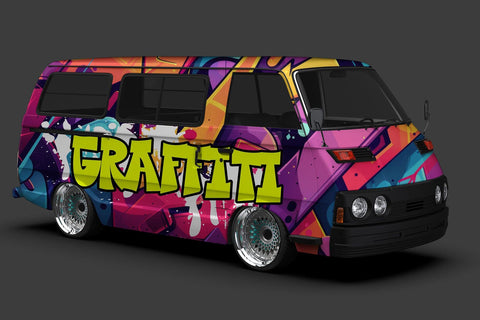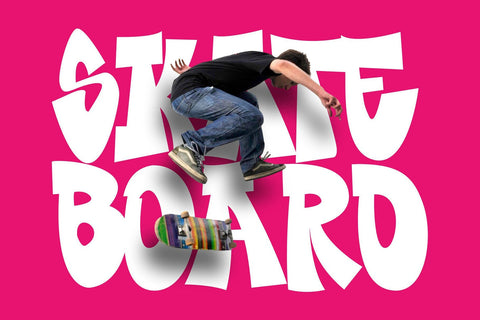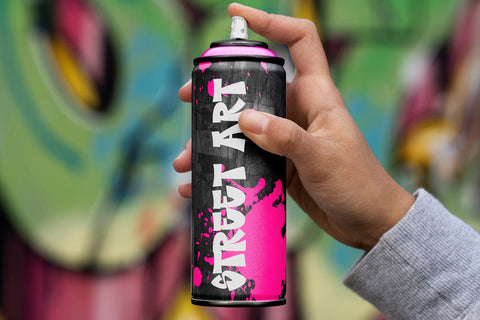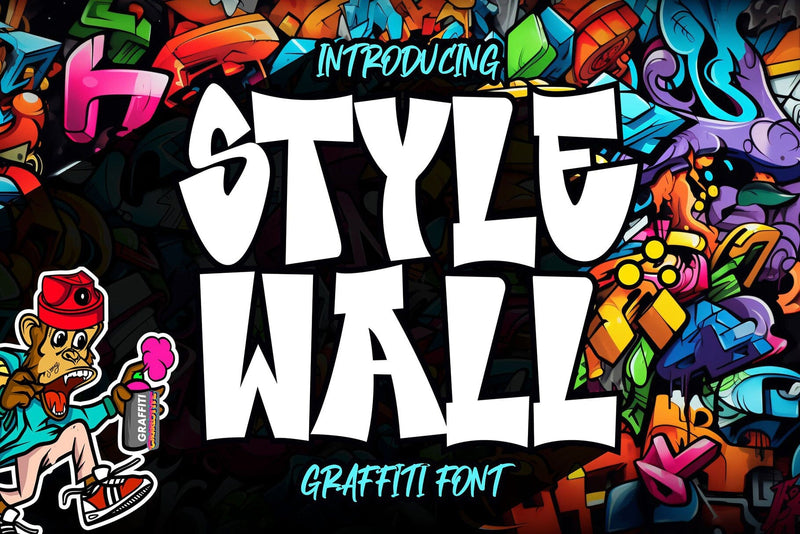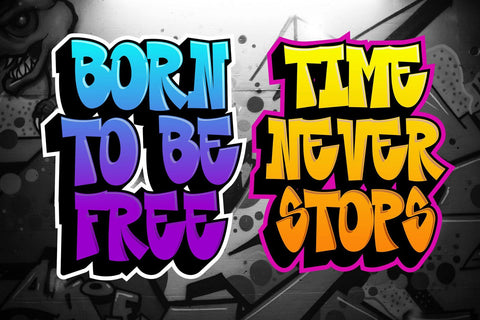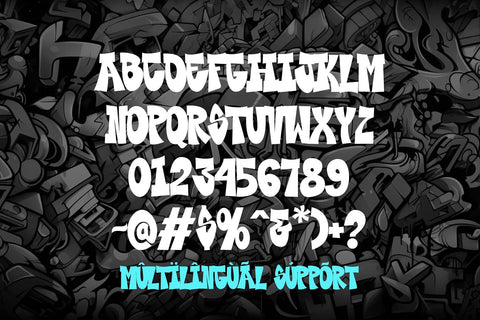
Style Wall - Urban Graffiti Font
Style Wall is an energetic and bold urban graffiti font that embodies the raw spirit of street art. With its powerful strokes and dynamic letterforms, this font transforms your designs into a vibrant canvas of urban expression.
🖌️ Street Authenticity: Style Wall captures the essence of graffiti, bringing the feel of hand-sprayed tags and murals to your projects. It’s the perfect choice for anyone looking to channel the edgy vibe of city streets.
🎨 Versatile and Impactful: Whether you’re working on posters, album covers, logos, or digital content, Style Wall’s striking style makes your message pop. Its distinctive look draws immediate attention and leaves a lasting impression.
🔥 Unleash Creativity: Style Wall offers a unique set of characters that flow naturally, giving designers the freedom to create bold and captivating visuals. Let your creativity run wild with a font that embodies the heart of street culture.
Take your designs to the next level with Style Wall, the ultimate choice for those who want to make a strong, urban statement.
- Awesome Graffiti Characters